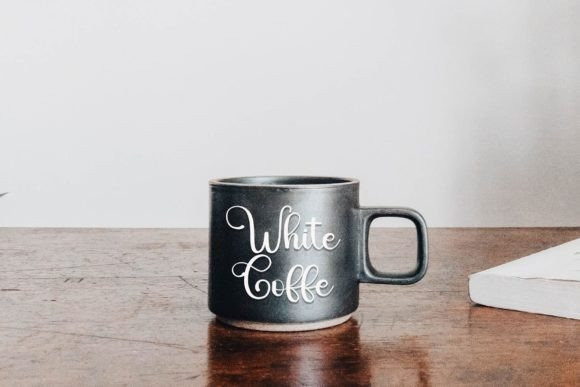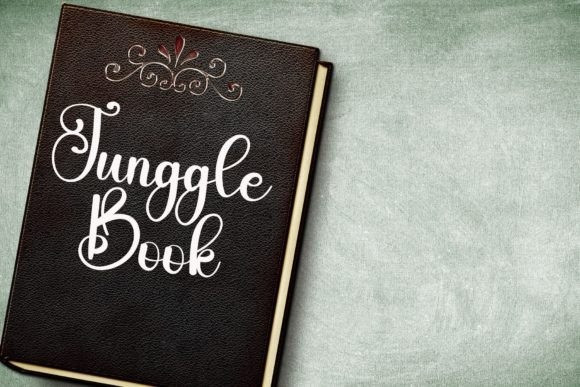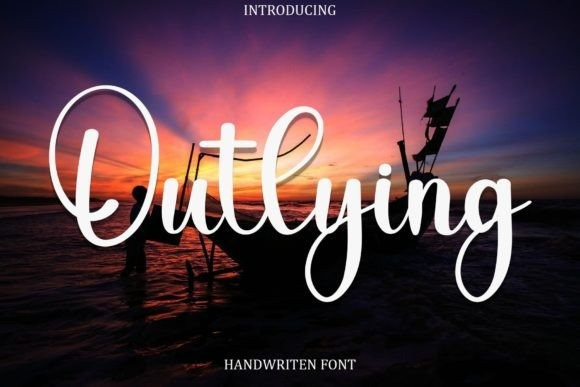
Outlying Script Font
Outlying Script Font, is a sweet and natural handwritten font. Its natural and unique style makes it incredibly fitting to a large pool of designs. The only limit is your imagination!